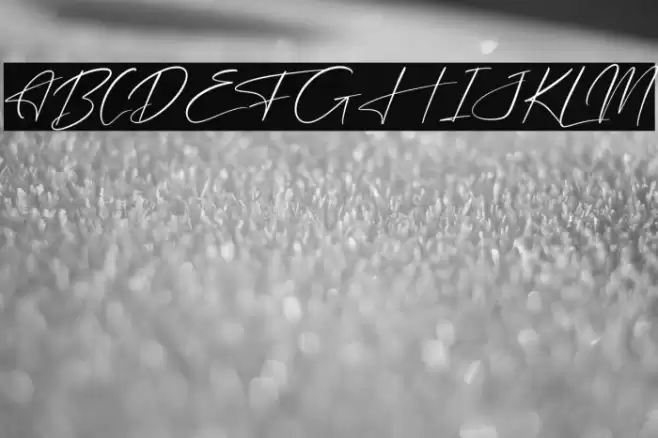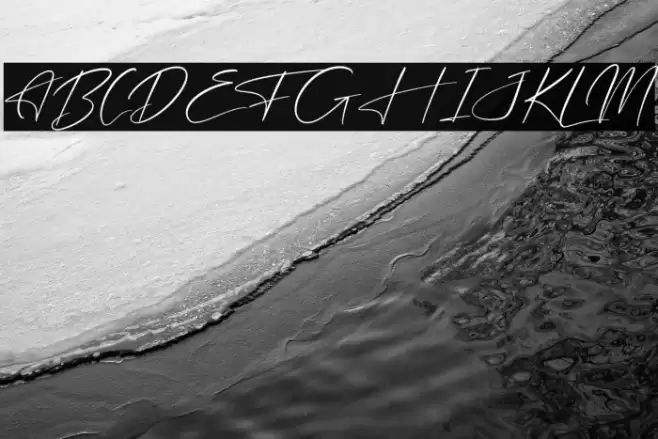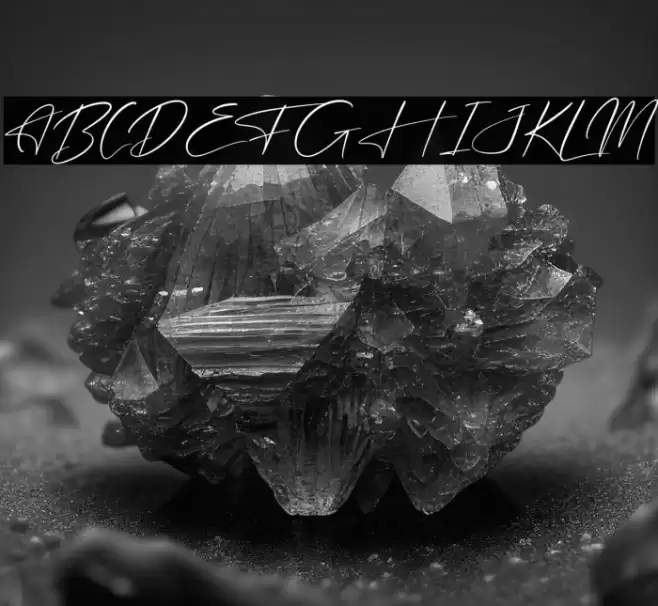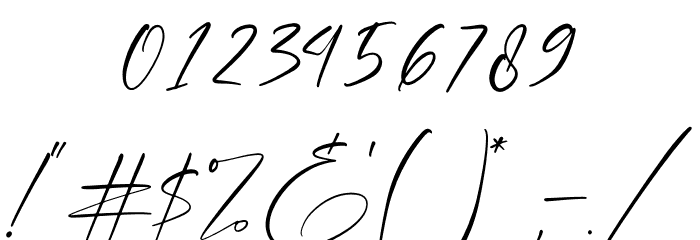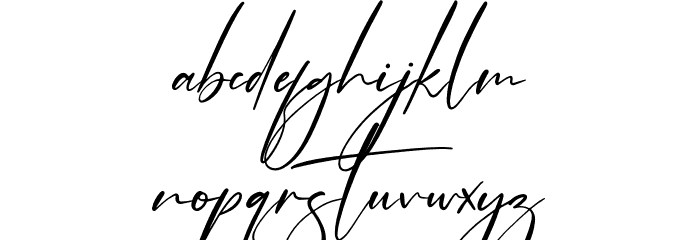
Freyatina Pelgona Font
Freyatina Pelgona Description
This font features an elegant and flowing script style, characterized by its thin, delicate strokes and a sense of fluidity. The uppercase letters are tall and slightly slanted, giving a sense of movement and grace. The lowercase letters maintain a consistent style with smooth curves and loops, enhancing the overall aesthetic. Numbers are designed with the same thin strokes, maintaining uniformity across the character set. Special characters are crafted with attention to detail, ensuring they blend seamlessly with the rest of the font. This font exudes sophistication and is ideal for projects that require a touch of elegance.
An elegant, flowing script font with thin, delicate strokes from Uncategorized fonts.
- Font: Freyatina Pelgona
- Proposed Projects: Ideal for wedding invitations, elegant branding, personal stationery, and high-end product packaging.
- Weight: Light
- Overall Style: Elegant
- Use Case: Logos, Invitations, Branding
Freyatina Pelgona UPPERCASE
Freyatina Pelgona LOWERCASE
Freyatina Pelgona OTHER CHARS